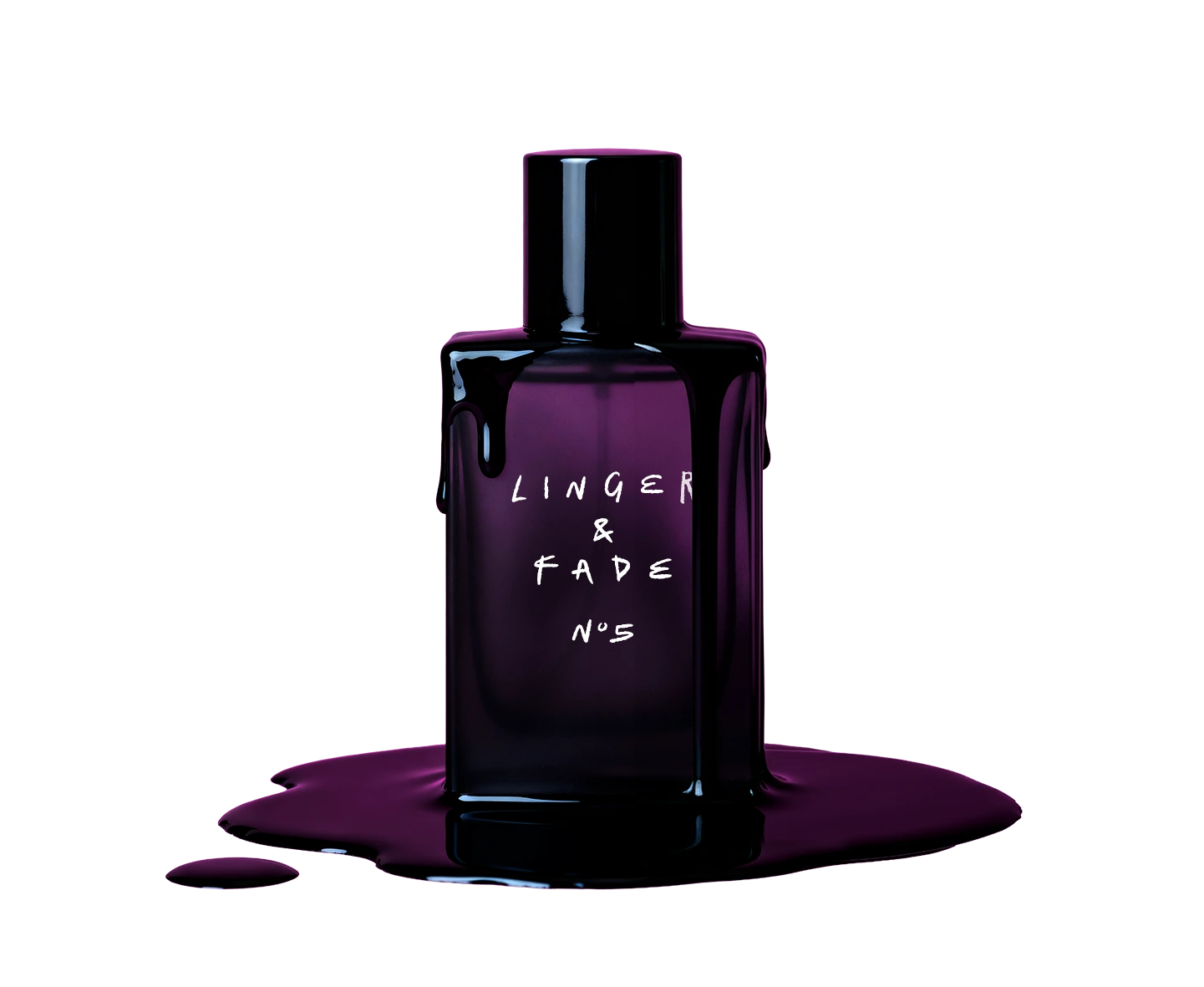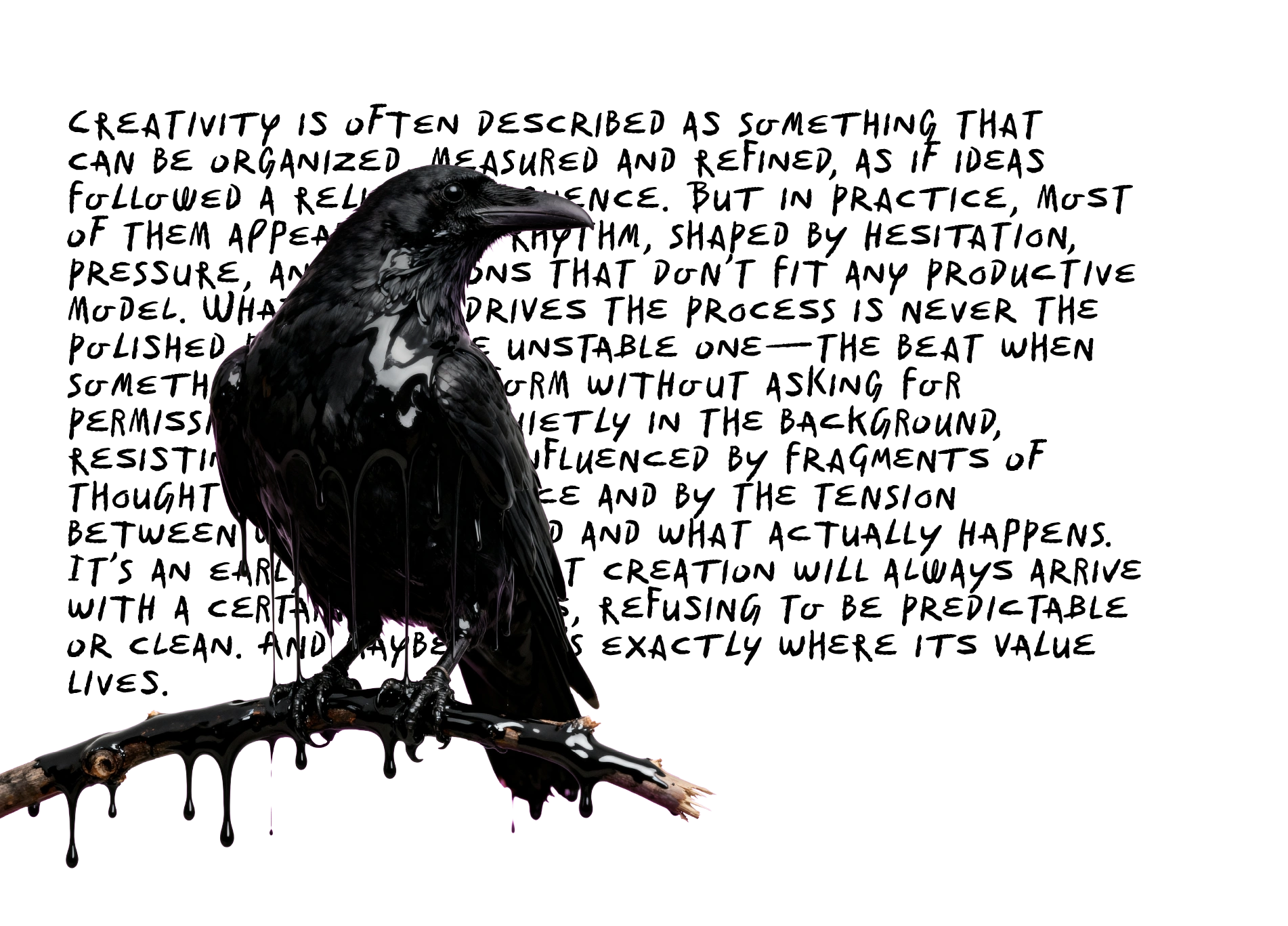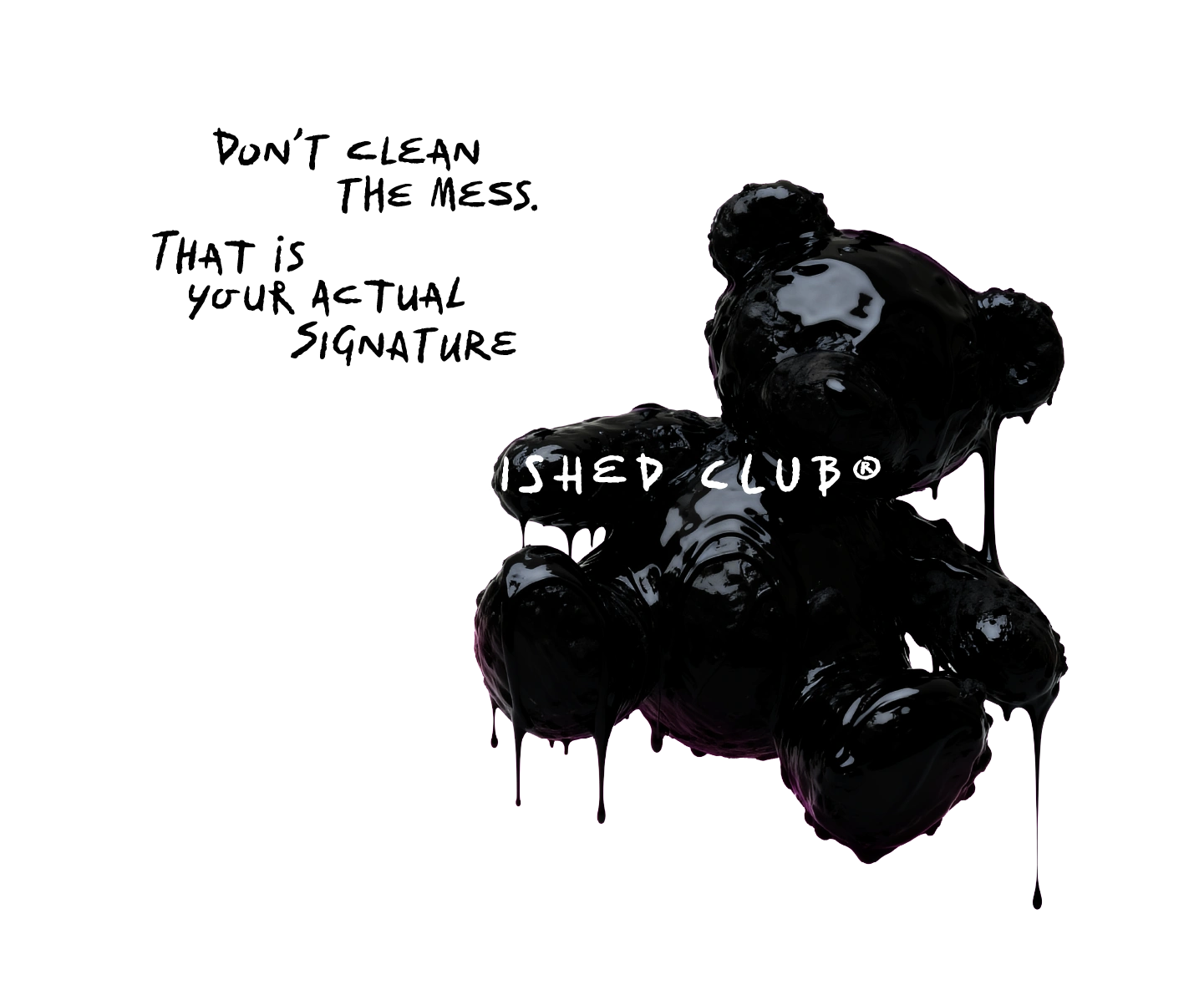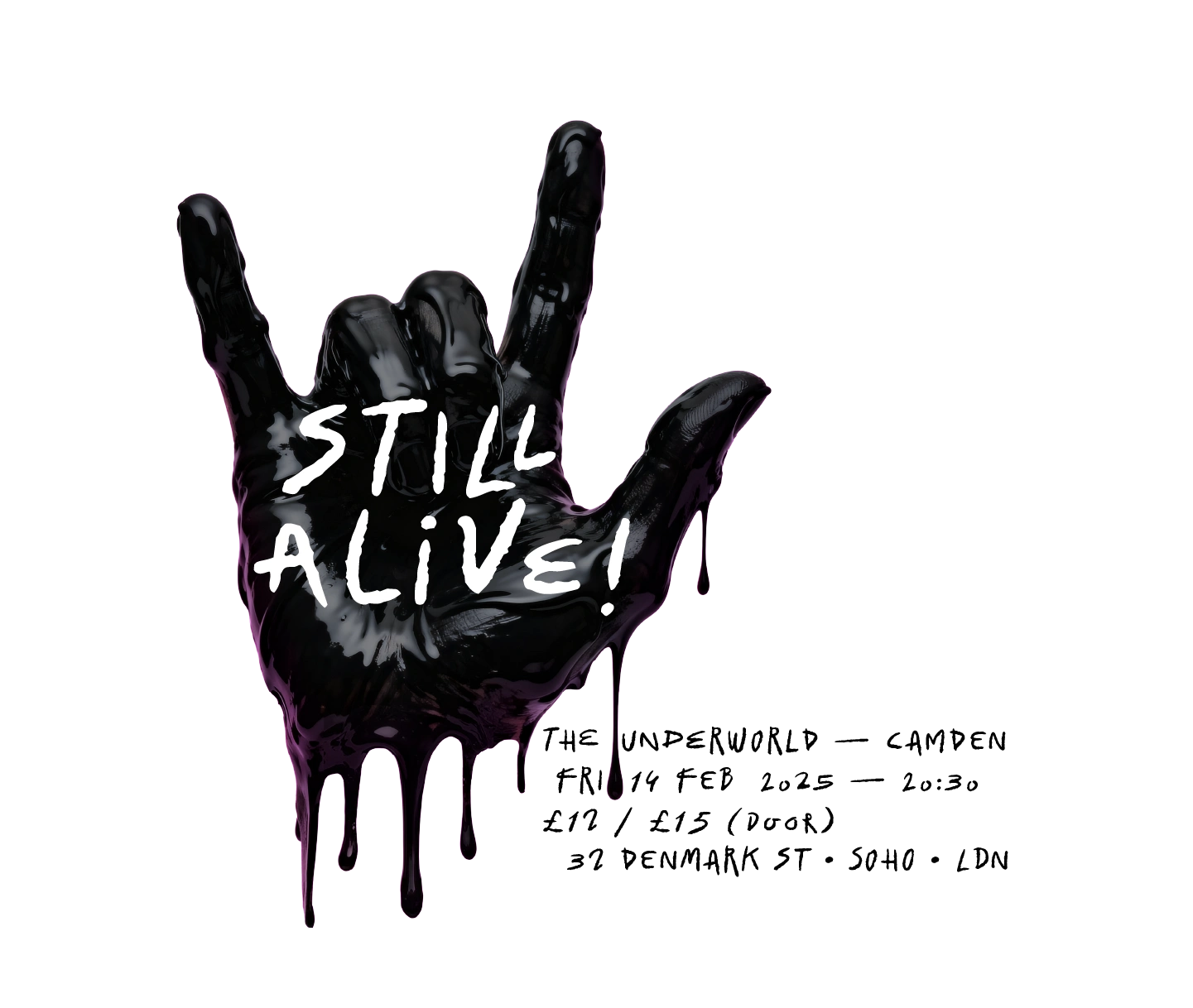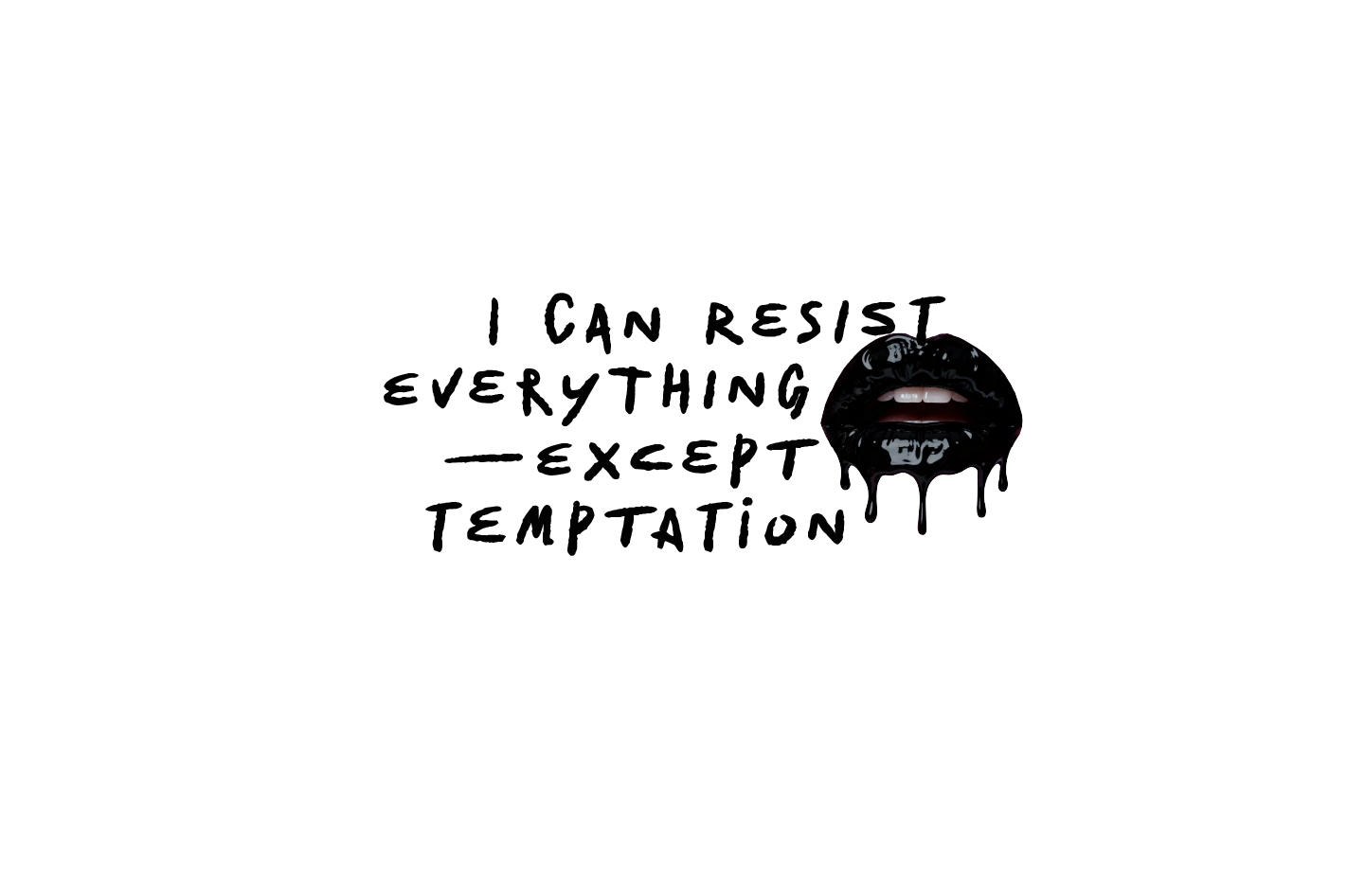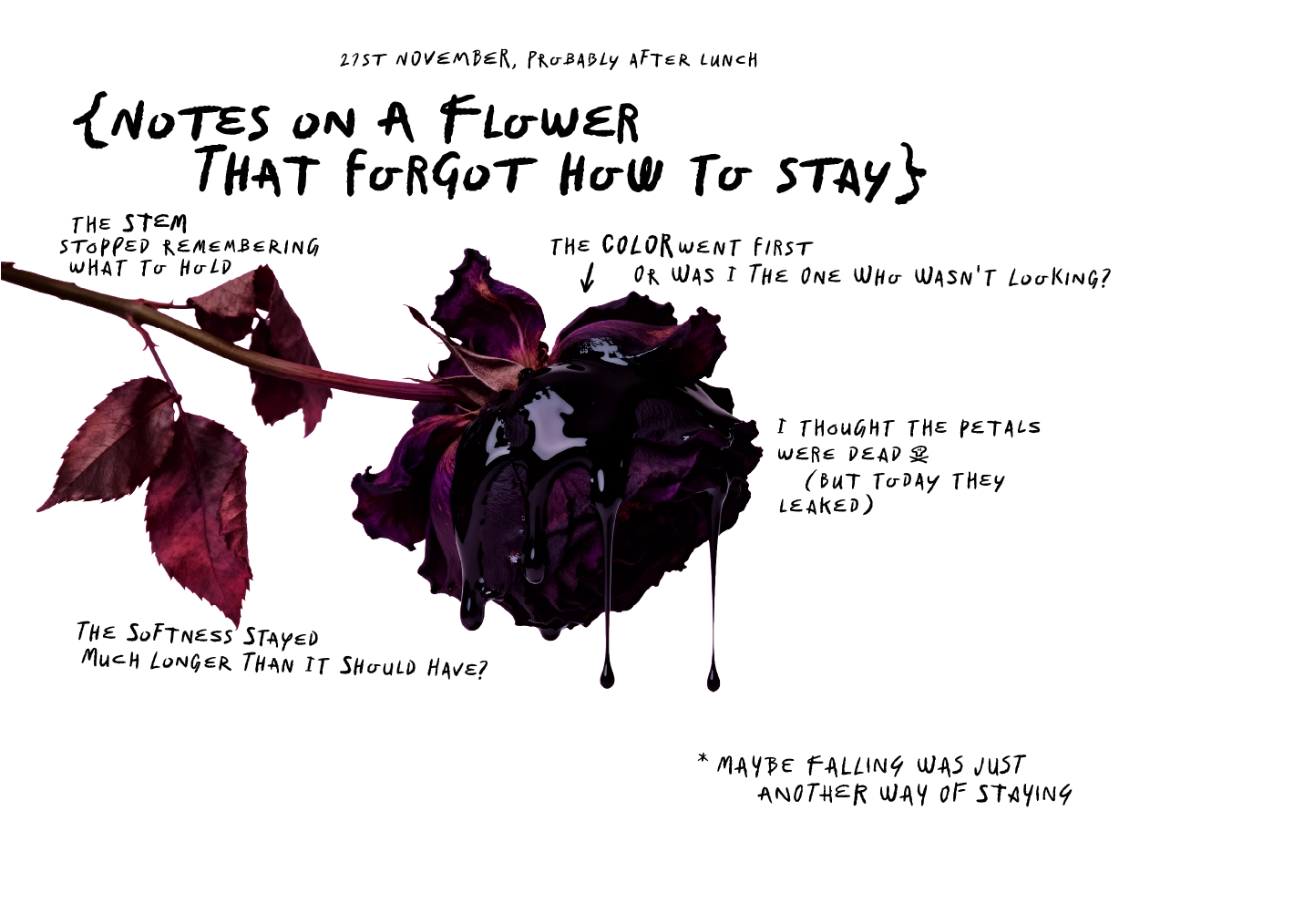
Marksy is a headline typeface built from individual uppercase letters. To avoid a rigid or mechanical look, it includes multiple versions of certain characters that alternate contextually. This approach introduces subtle visual variation, giving the text a more organic rhythm while maintaining its role as a display typeface.